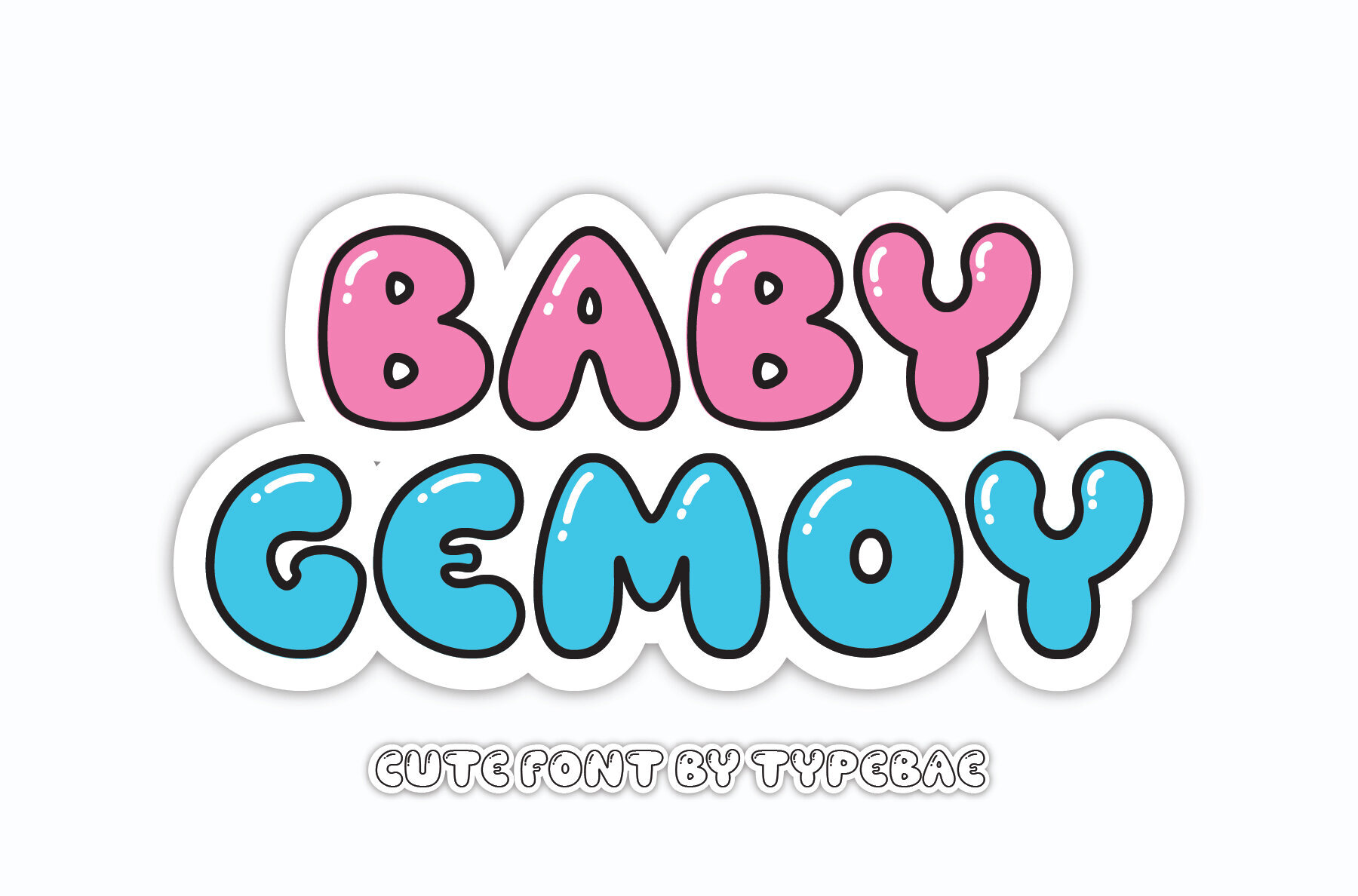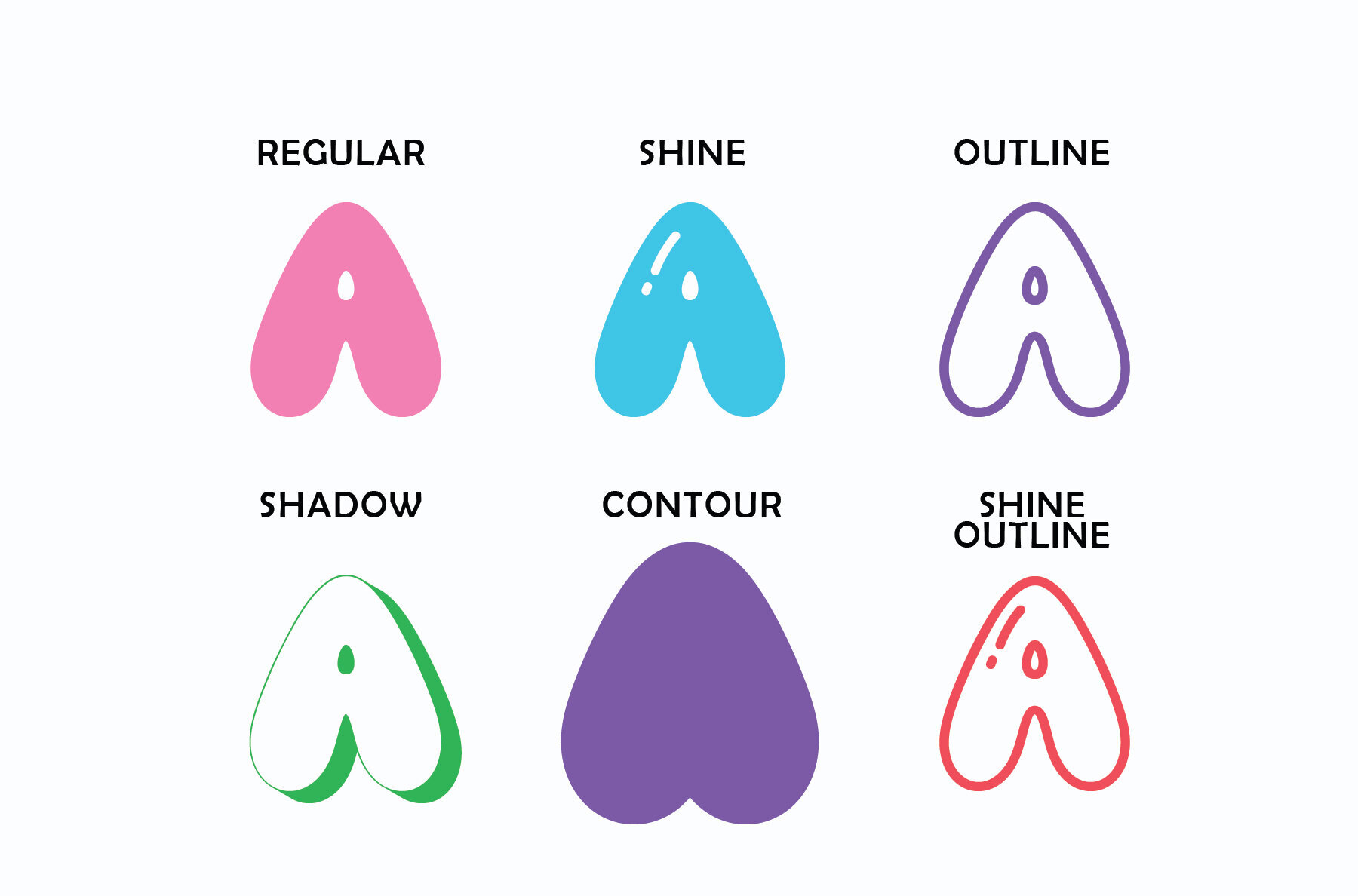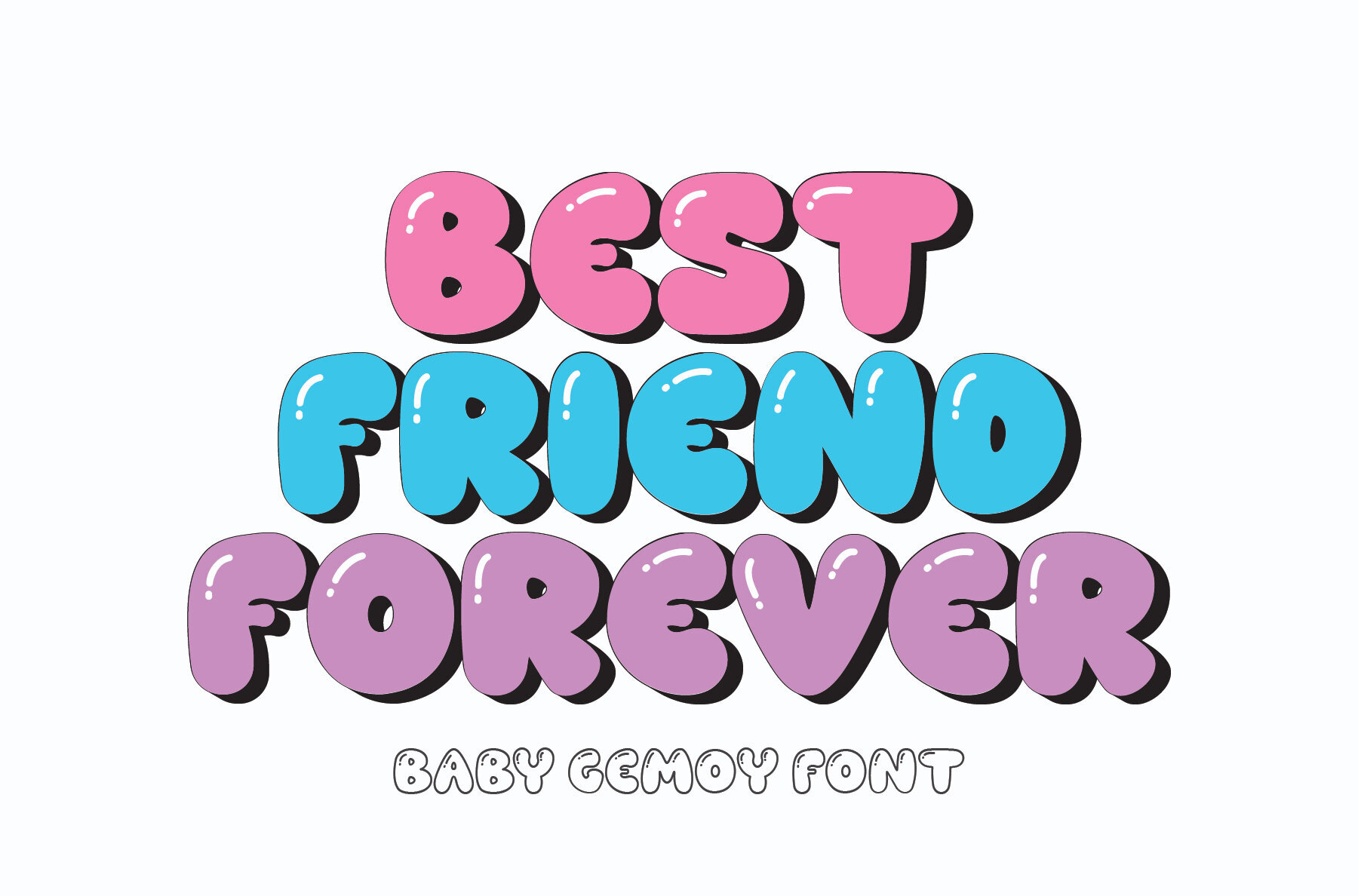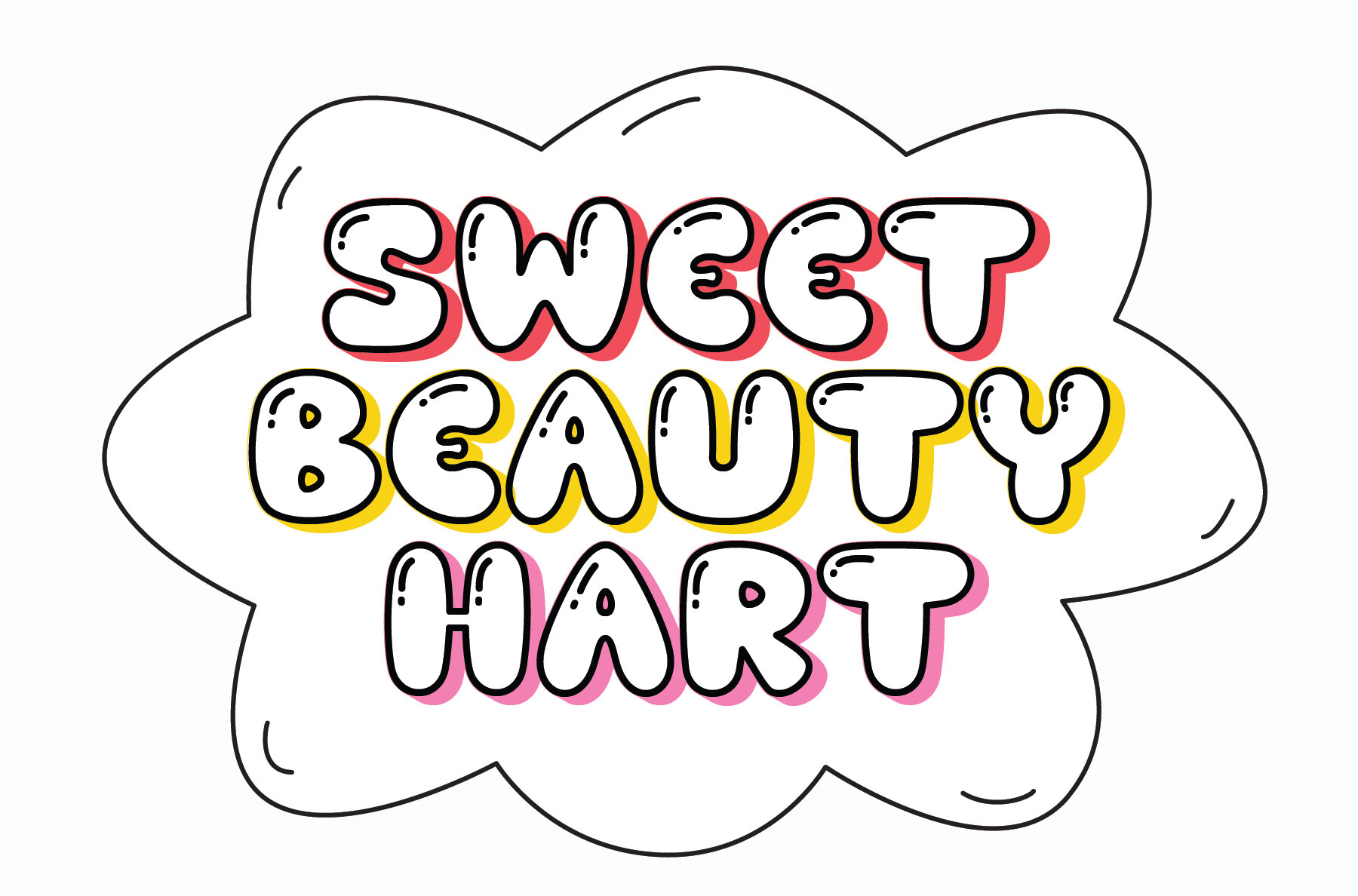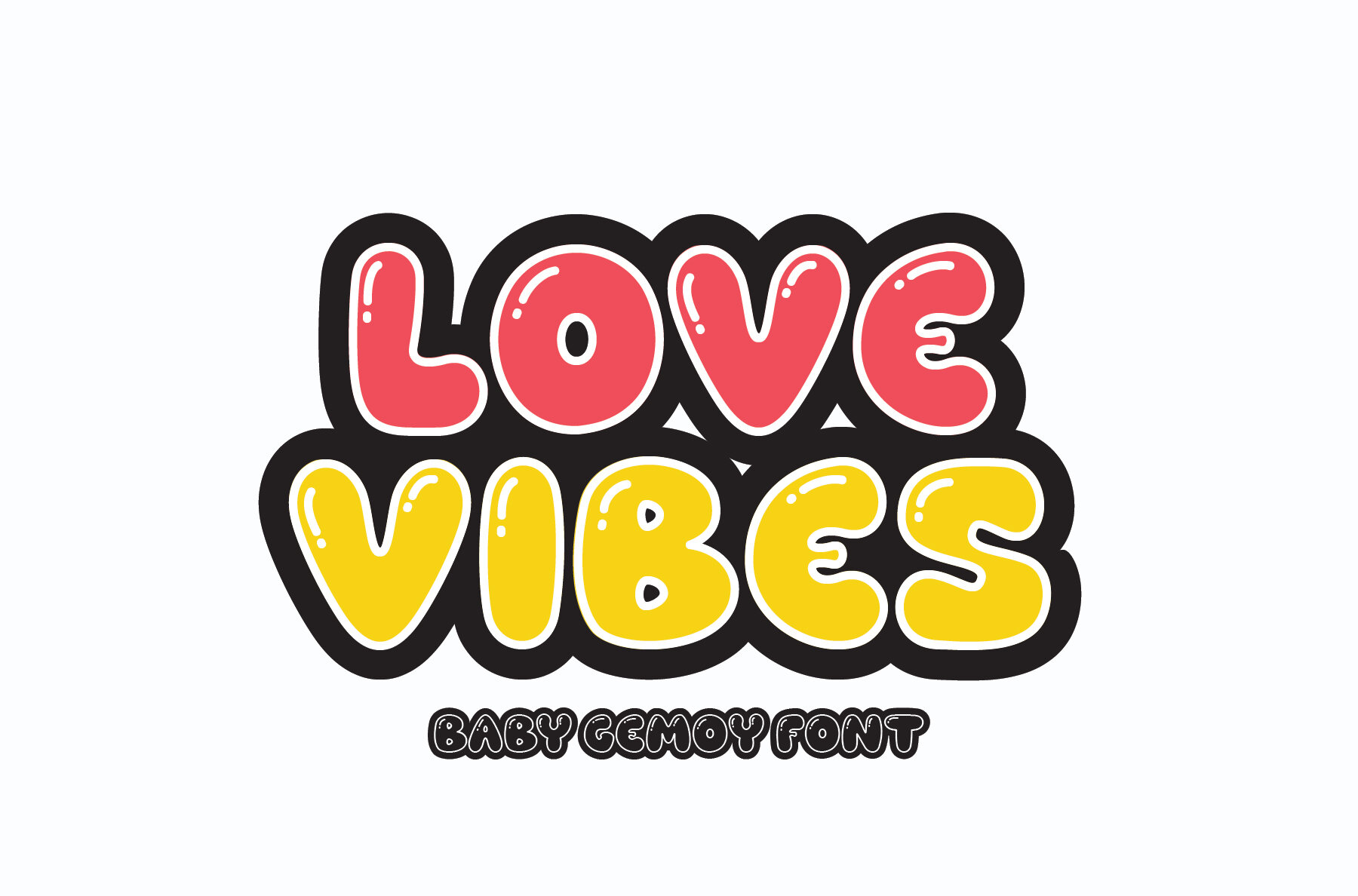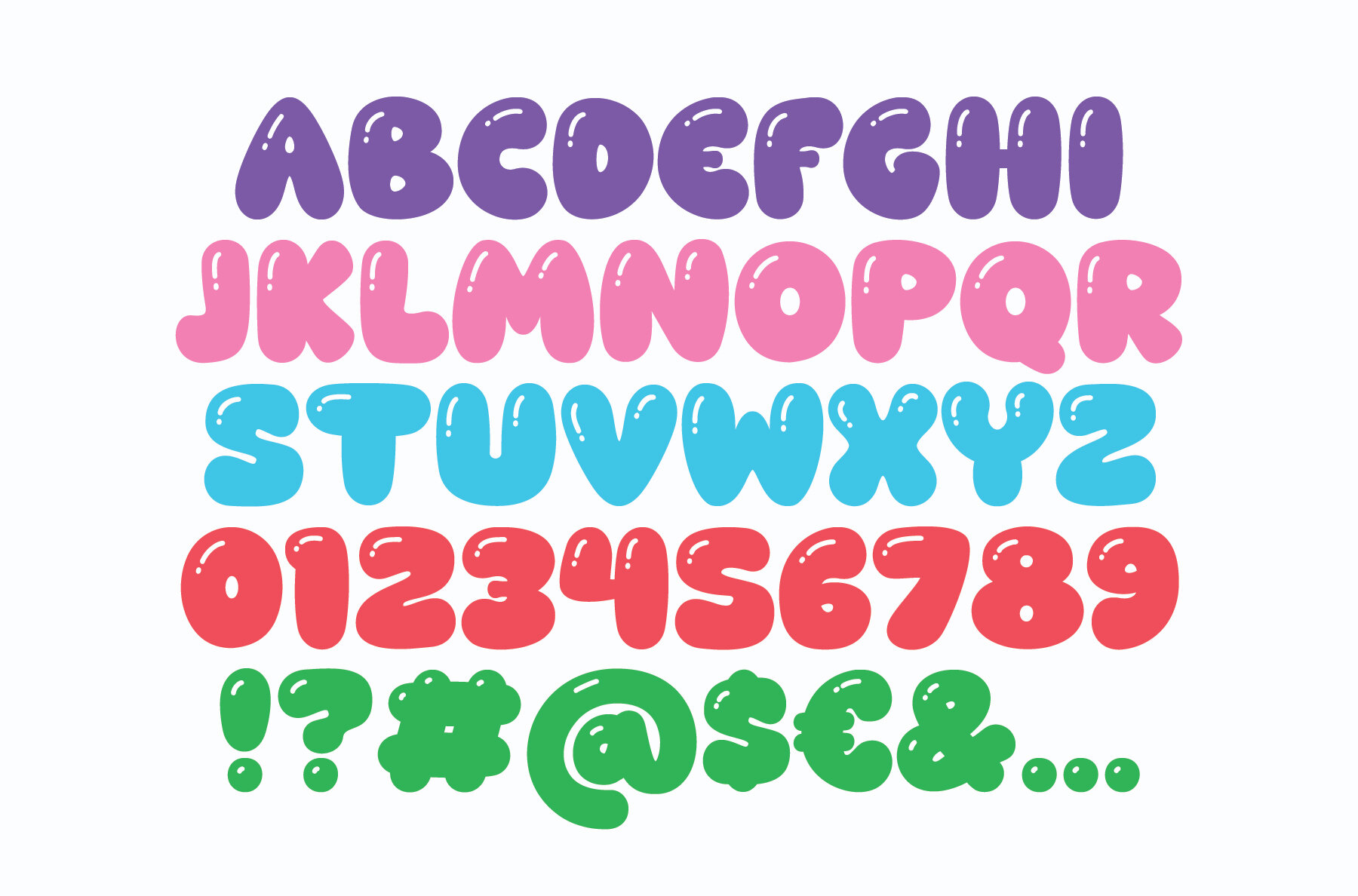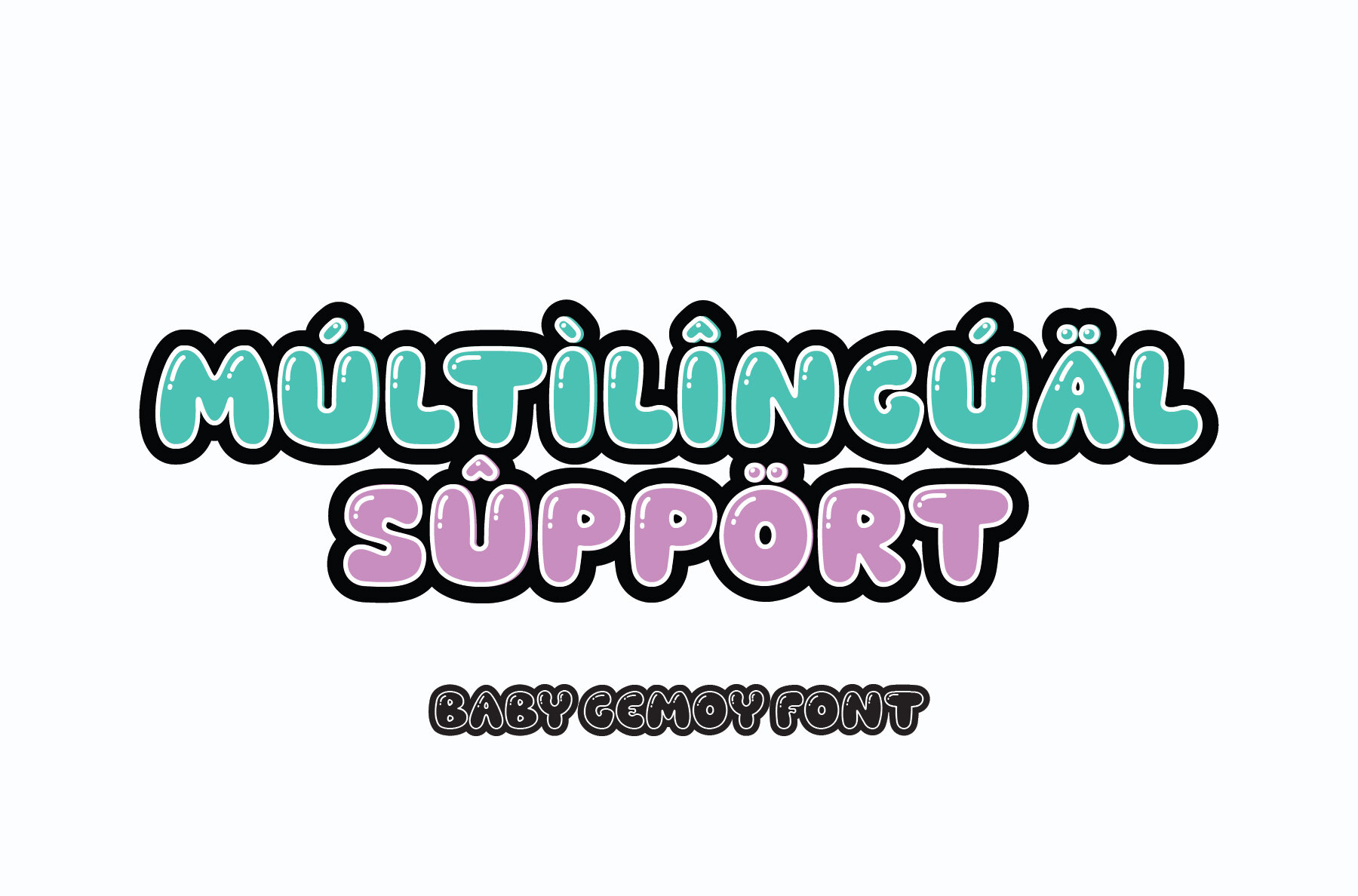
Baby Gemoy Font
Baby Gemoy Regular
Baby Gemoy Contour
Baby Gemoy Outline
Baby Gemoy Shadow
Baby Gemoy Shiny
Baby Gemoy Shiny Outline
Baby Gemoy is a lively bubble font designed to add a lighthearted touch to any creative project. Its rounded shapes and soft curves make each letter feel playful and inviting, ideal for branding, merchandise, posters, or children’s designs. With six distinct styles, Baby Gemoy offers flexibility and visual variety, allowing designers to create unique typography compositions that capture attention without overwhelming the layout. These features support both versatility and readability, ensuring Baby Gemoy stands out in playful titles and youthful branding. Its friendly charm and range of styles make it a reliable choice for designers who appreciate clean, approachable typography.Baby Gemoy Bubble Font